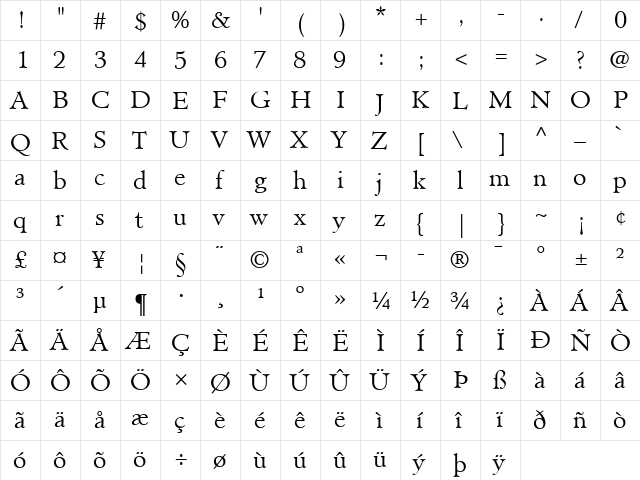
Minister LT Light Regular
Design Context for Minister LT Light Typeface
Minister LT Light is a composed and adaptable typeface that performs quietly and consistently across a wide range of design contexts. The delicate stroke weight brings airiness and refinement to layouts.